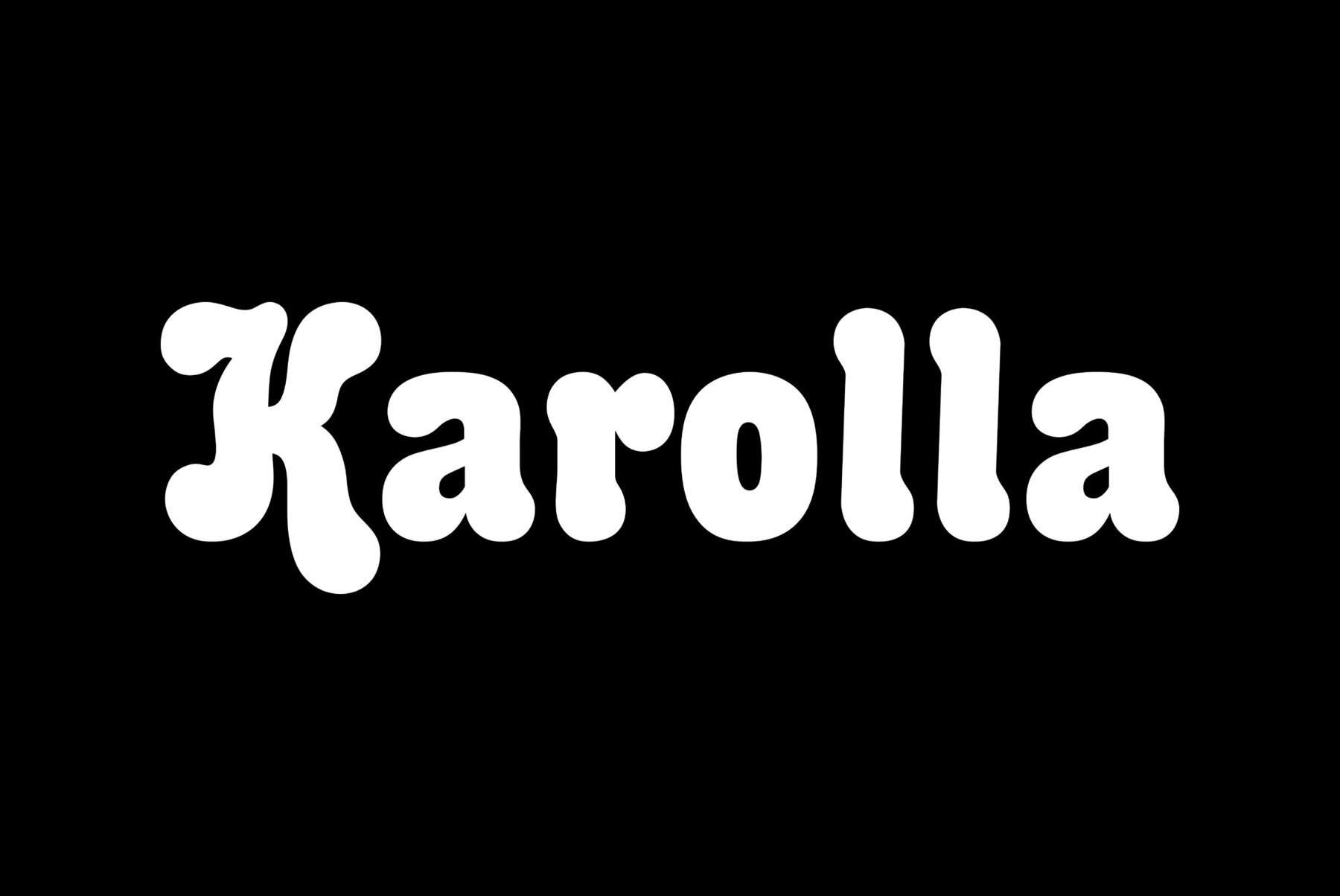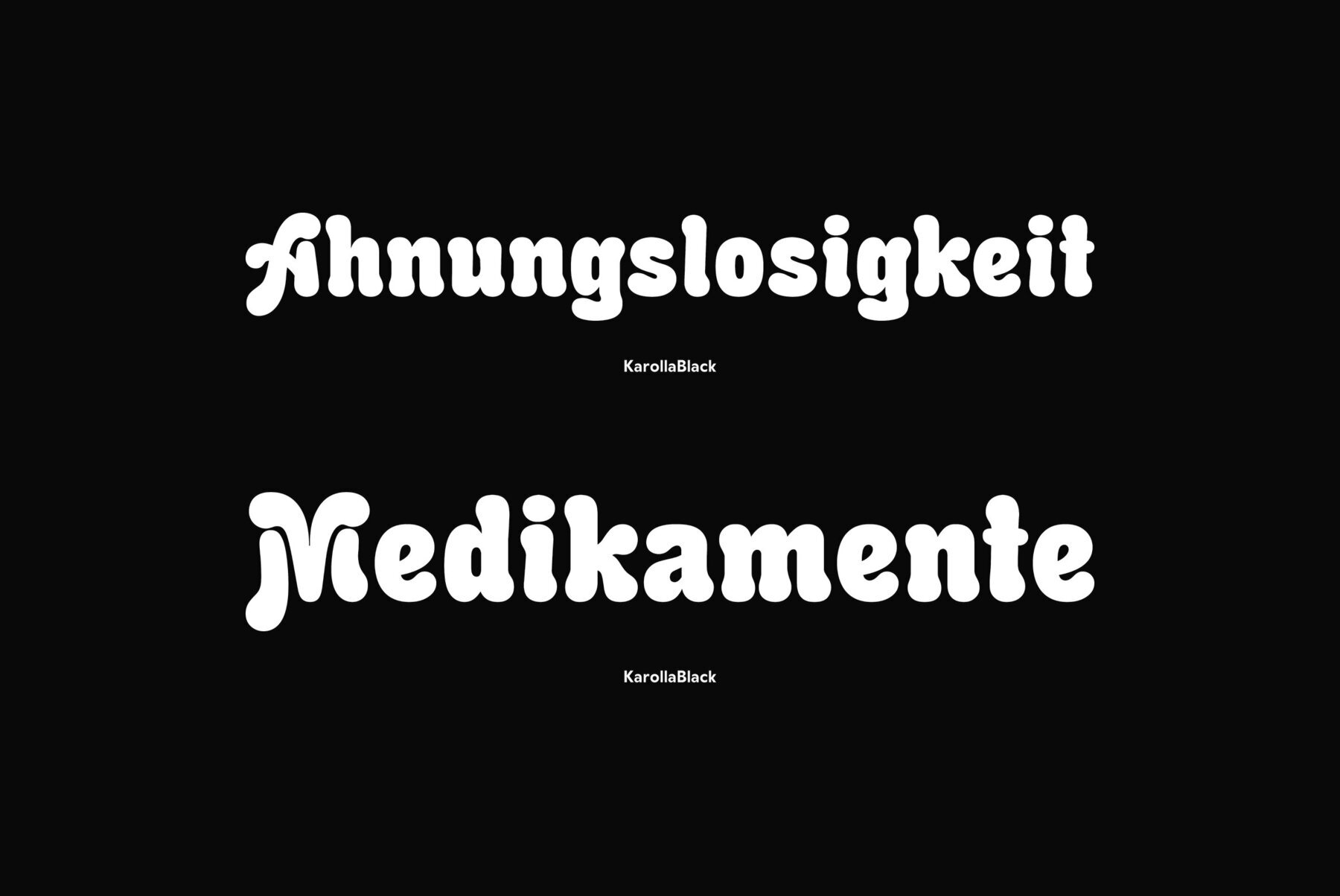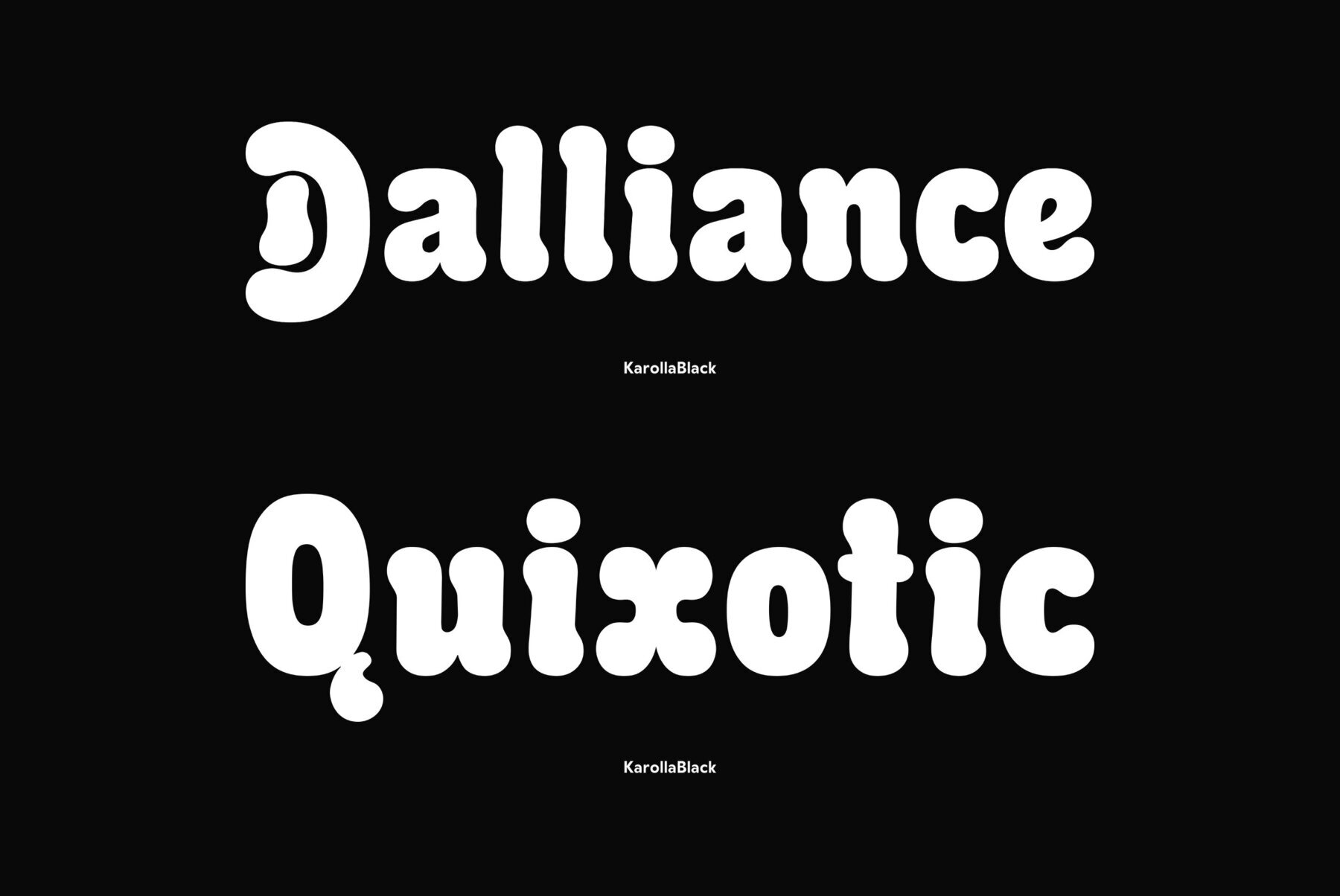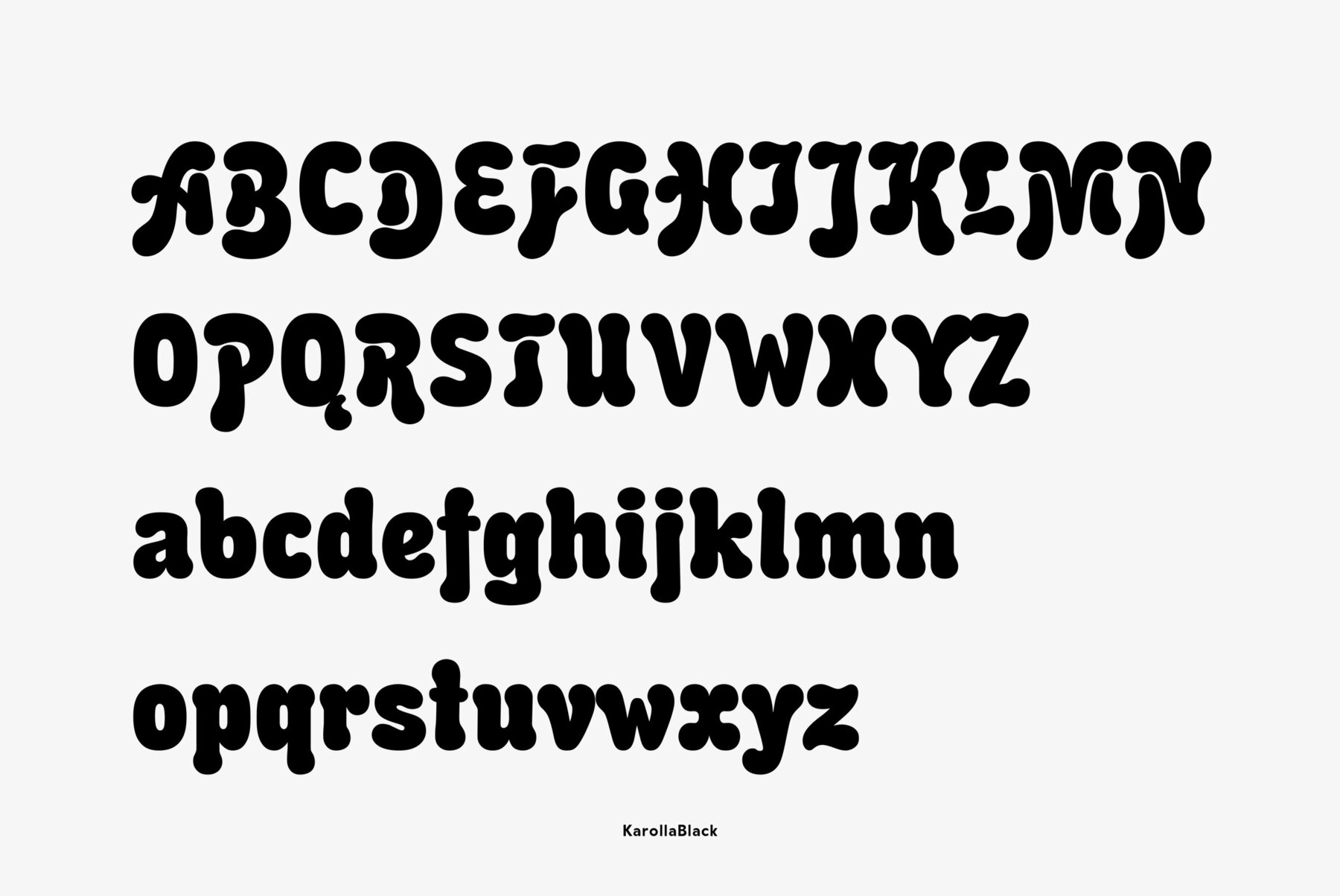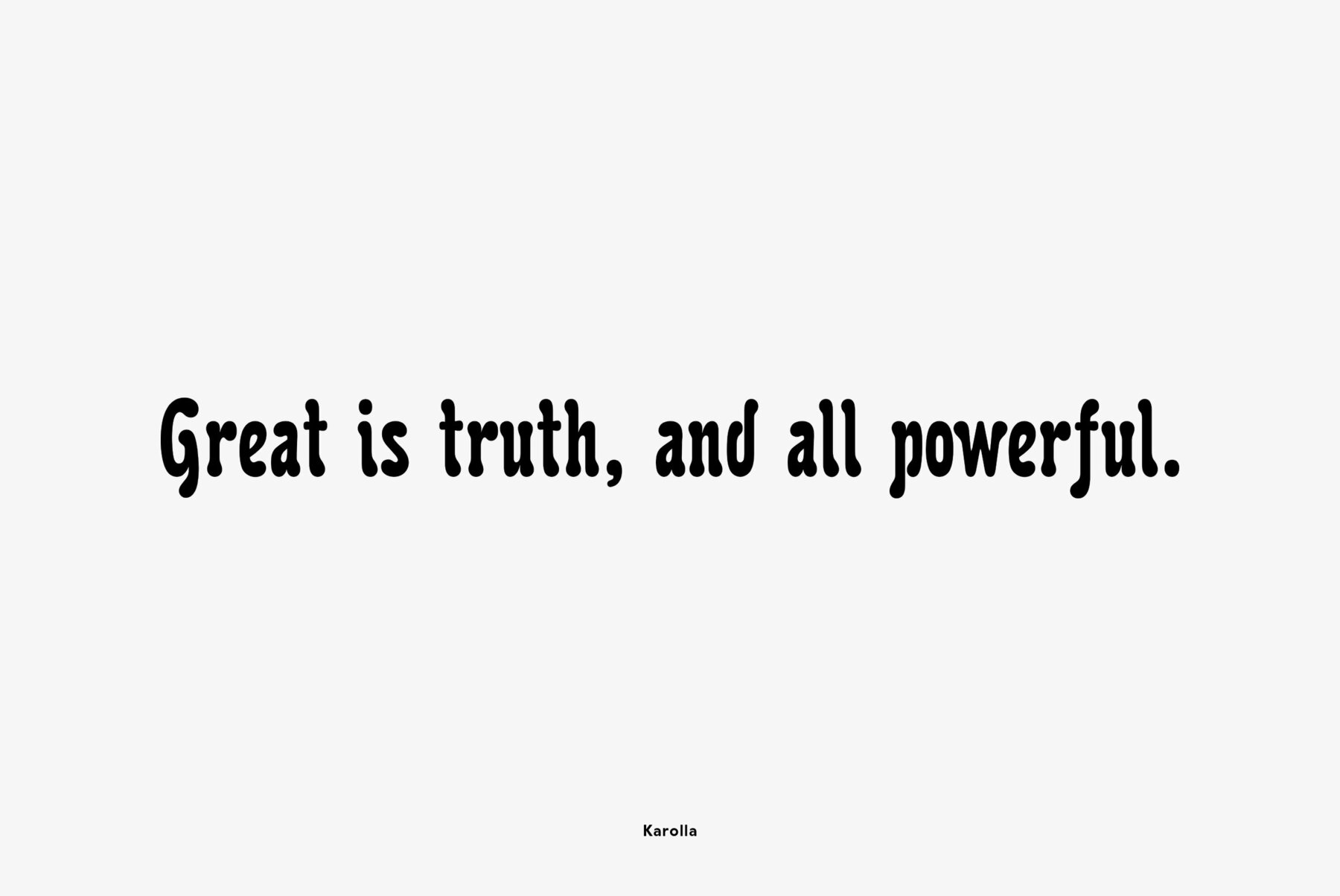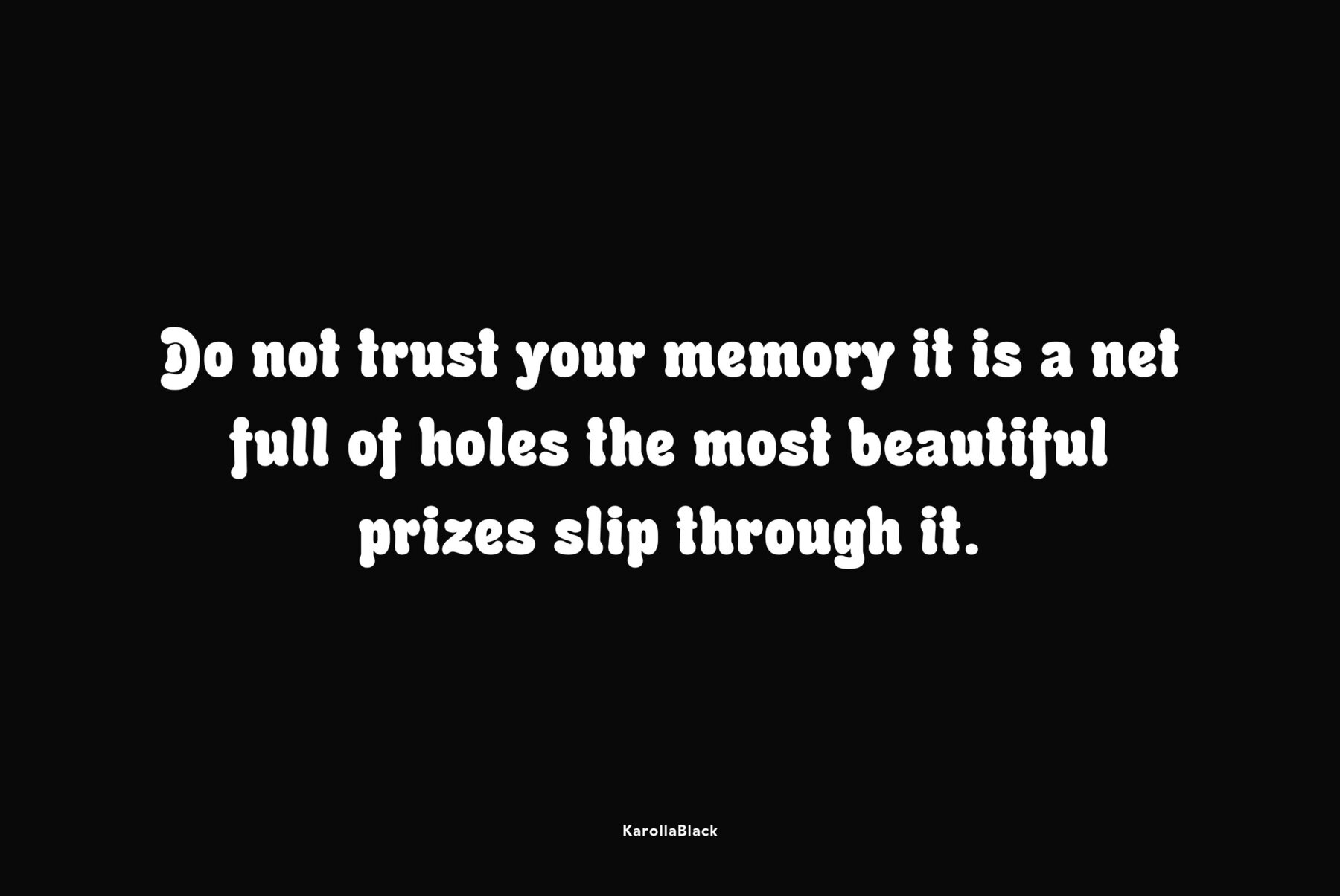
Karolla Font
Designed at ParaType (ParaGraph) in 1994 by Tatiana Lyskova. Based on Karola Grotesk of H.Berthold and Bauer type foundries (early 20th century) and Boutique of Haas type foundry (Munchenshtein, Switzerland). Bold style based on Hercules of H.Berthold foundry (early 20th century) was added for ParaType by Manvel Shmavonyan in 2002. For use in advertising and display typography.